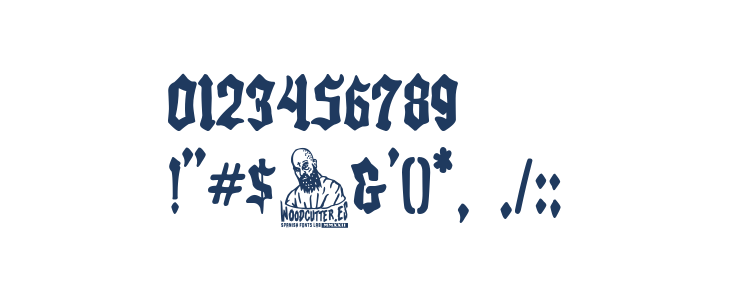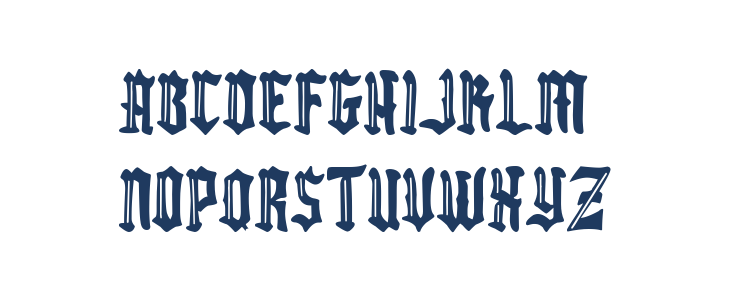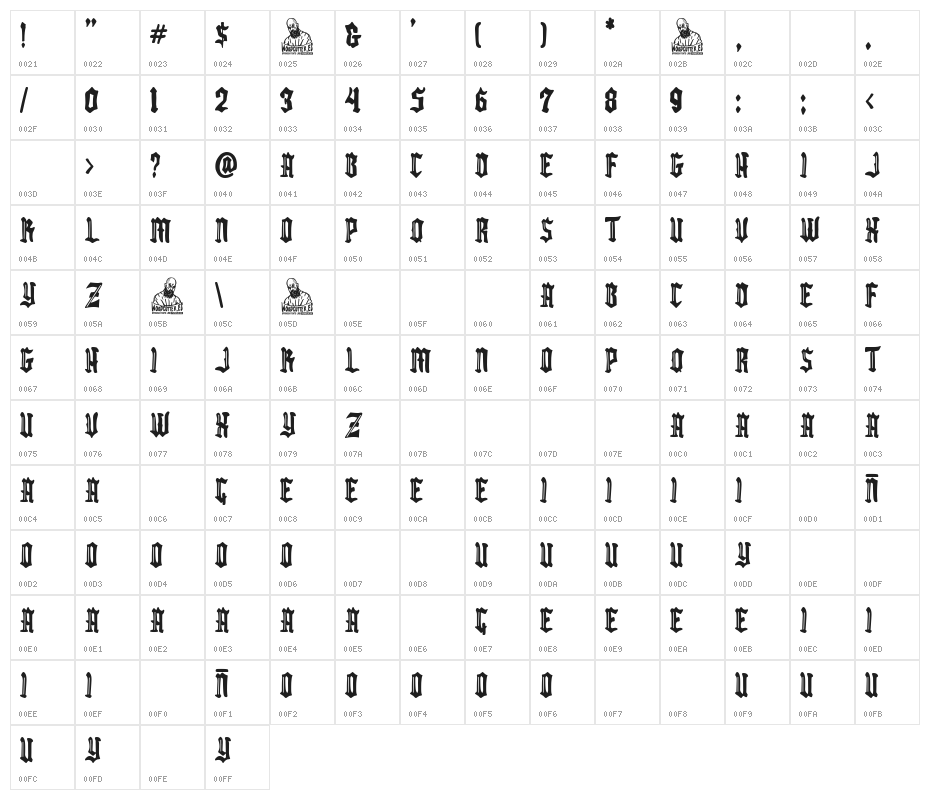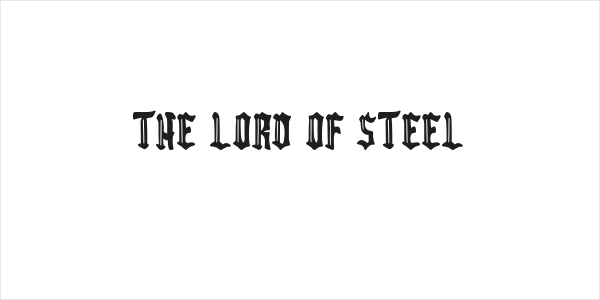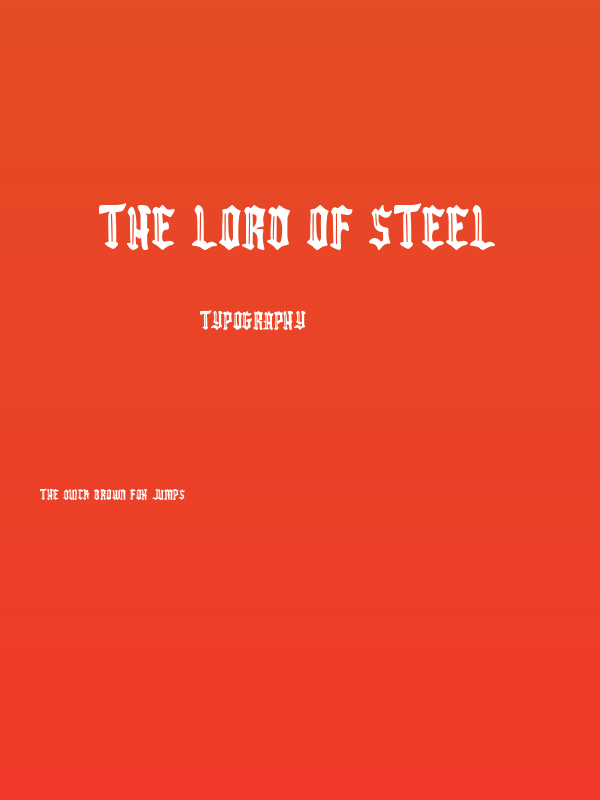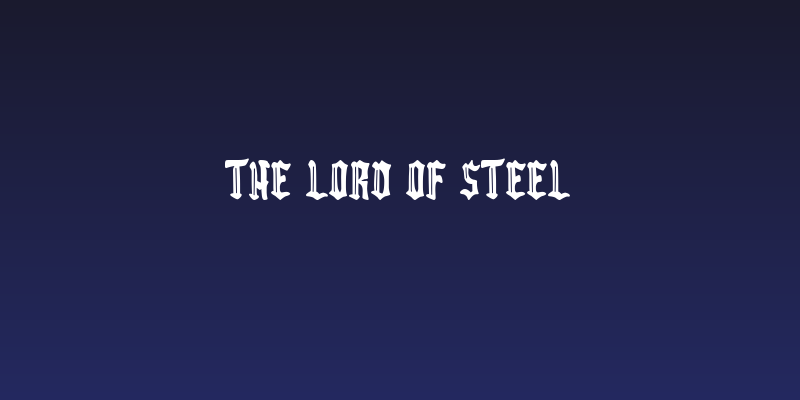
The Lord of Steel Font
The Lord of Steel Description
A bold, angular blackletter typeface with dramatic vertical strokes and sharp serifs, evoking a medieval or gothic aesthetic. The characters are highly stylized with strong contrast between thick and thin lines, and the overall appearance is ornate and decorative.
| Overall Style | Decorative, Gothic, Medieval |
| Use Case | Logos, Headlines, Posters, Themed graphics |
| Proposed Projects | Posters, metal band logos, fantasy book covers, tattoo designs, themed event invitations. |